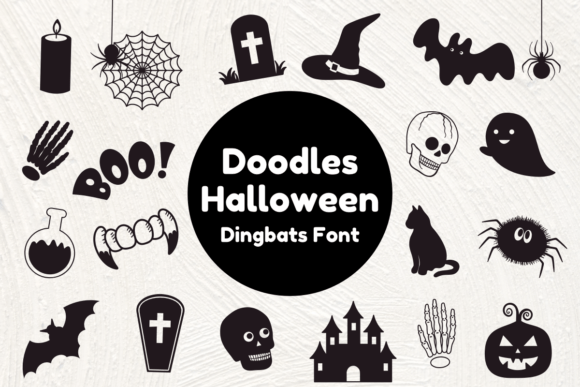
Doodles Halloween Font: A Spooky and Versatile Icon Font for Your Halloween Needs
Are you looking for a fun and creative way to add a spooky touch to your Halloween-themed projects? Look no further than Doodles Halloween Font, a playful dingbats font packed with crisp, scalable Halloween icons. In this article, we’ll explore the features and benefits of this versatile font and how you can use it to create boo-tiful graphics for your Halloween needs.
What is Doodles Halloween Font?
Doodles Halloween Font is a dingbats font that features a wide range of Halloween-themed icons, including pumpkins, bats, skulls, spiders, webs, witch hats, cats, coffins, candles, potions, trees, and more. Each glyph is a clean vector silhouette, making it perfect for use in a variety of applications, from posters and party invites to stickers and social media graphics.
Key Features of Doodles Halloween Font
- Crisp, Scalable Icons: Each glyph is a clean vector silhouette, making it perfect for use in a variety of applications, from small stickers to large posters.
- Solid Fills: The font features solid fills with no strokes, keeping cuts tidy on Cricut/Silhouette and making it perfect for use with cutting machines.
- Consistent Baseline and Balanced Weight: The font has a consistent baseline and balanced weight, making it easy to mix icons with text.
- Lightweight and Versatile: The font is lightweight and versatile, making it perfect for use in a variety of applications, from posters and party invites to stickers and social media graphics.
Benefits of Using Doodles Halloween Font
There are many benefits to using Doodles Halloween Font for your Halloween-themed projects. Here are just a few:
- Save Time: With Doodles Halloween Font, you can create professional-looking Halloween graphics in seconds, saving you time and effort.
- Easy to Use: The font is easy to use and can be used in any app, making it perfect for crafters, makers, and small business owners.
- Customizable: The font is highly customizable, allowing you to resize and recolor the icons to fit your needs.
- Perfect for Makers: The font is perfect for use with cutting machines like Cricut and Silhouette, making it a great choice for crafters and makers.
Use Cases for Doodles Halloween Font
Doodles Halloween Font is a versatile font that can be used in a variety of applications, including:
- Posters and Party Invites: Use the font to create eye-catching posters and party invites for your Halloween party.
- Stickers and Decals: Use the font to create custom stickers and decals for your Halloween-themed projects.
- Social Media Graphics: Use the font to create spooky social media graphics to share with your friends and followers.
- Classroom Decor: Use the font to create Halloween-themed classroom decor, including banners, signs, and bulletin board decorations.
- Packaging: Use the font to create custom packaging for your Halloween-themed products.
Tips and Tricks for Using Doodles Halloween Font
Here are a few tips and tricks for using Doodles Halloween Font:
- Experiment with Different Colors: Experiment with different colors and combinations to create unique and eye-catching graphics.
- Mix and Match Icons: Mix and match icons to create custom graphics that fit your needs.
- Use with Other Fonts: Use Doodles Halloween Font with other fonts to create custom and unique graphics.
- Resize and Recolor: Resize and recolor the icons to fit your needs and create custom graphics.